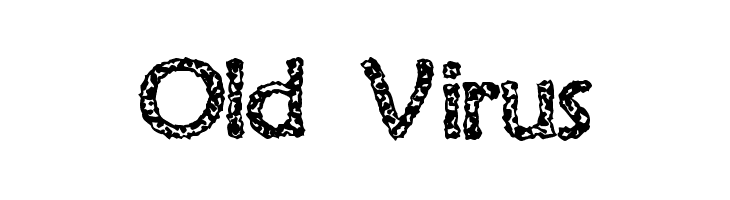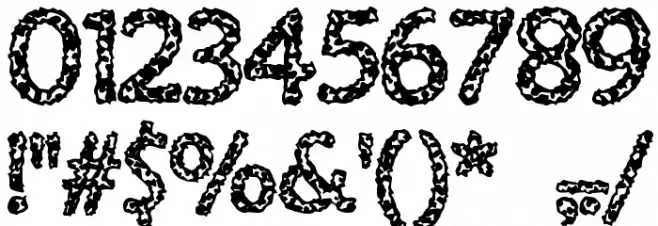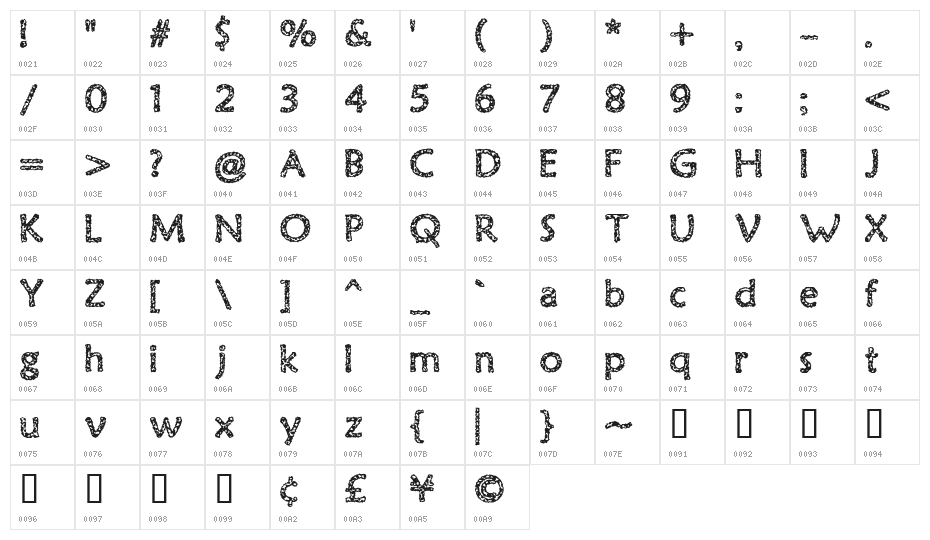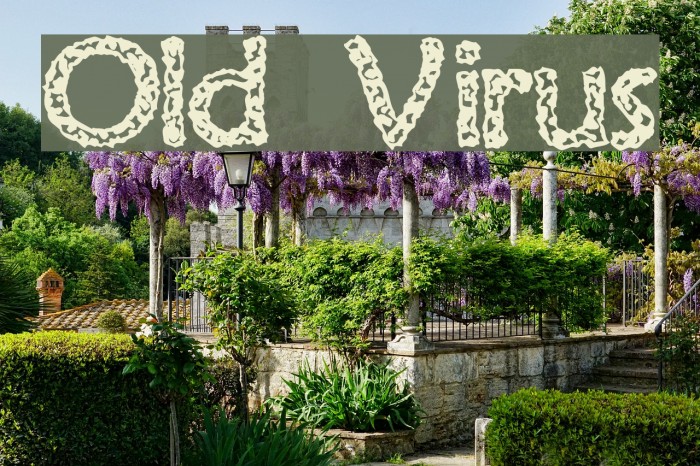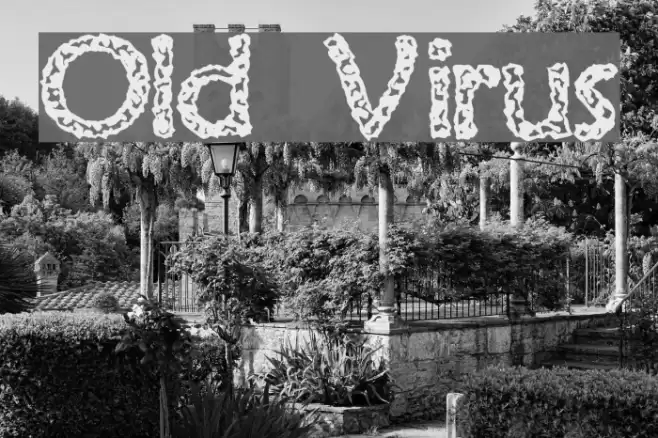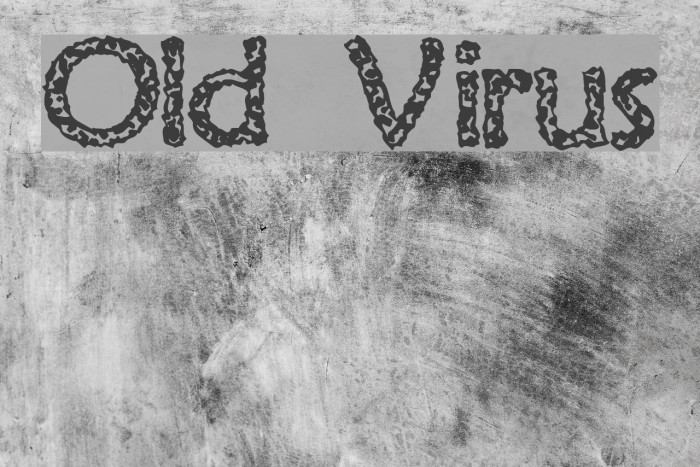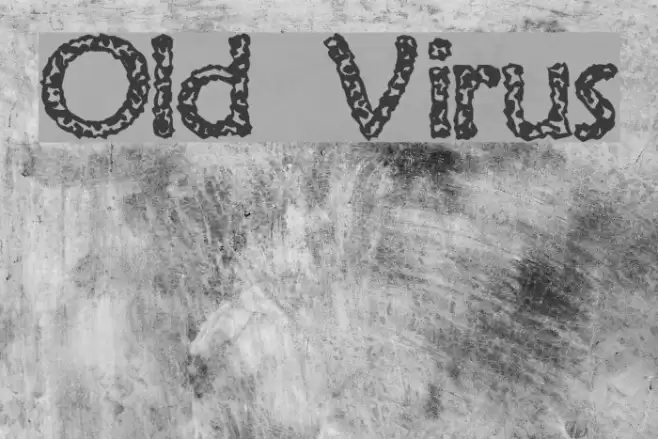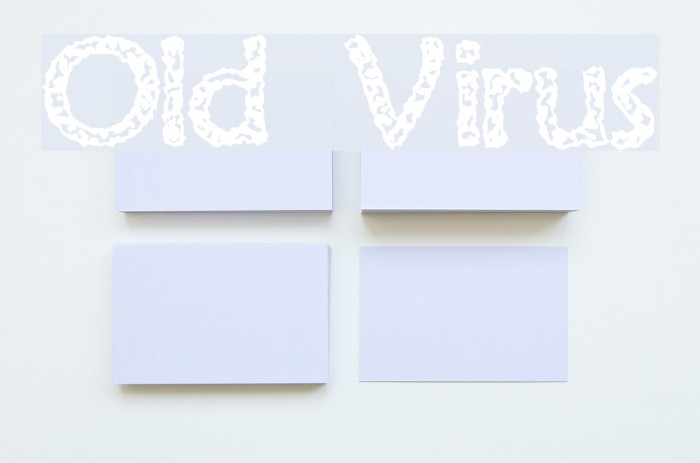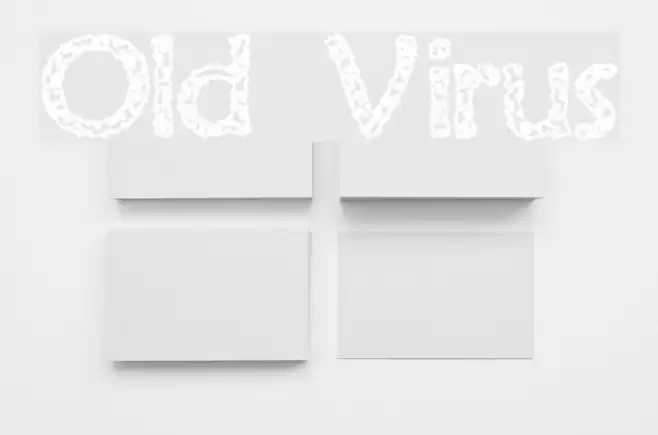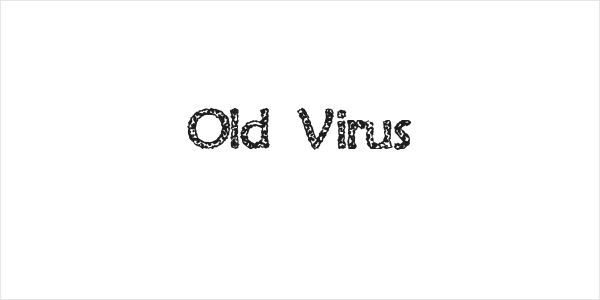
Old Virus Font
Old Virus Description
This font features a unique, textured design that resembles a virus or organic pattern, giving it a distinctive and edgy appearance. The characters are bold and irregular, with a rough, hand-drawn look that adds a sense of movement and energy. The uppercase and lowercase letters maintain a consistent style, with each character appearing as if it is composed of small, interconnected shapes. The numbers and special characters follow the same design principles, ensuring a cohesive look across all glyphs. This font is ideal for projects that require a bold statement or a creative, unconventional aesthetic.